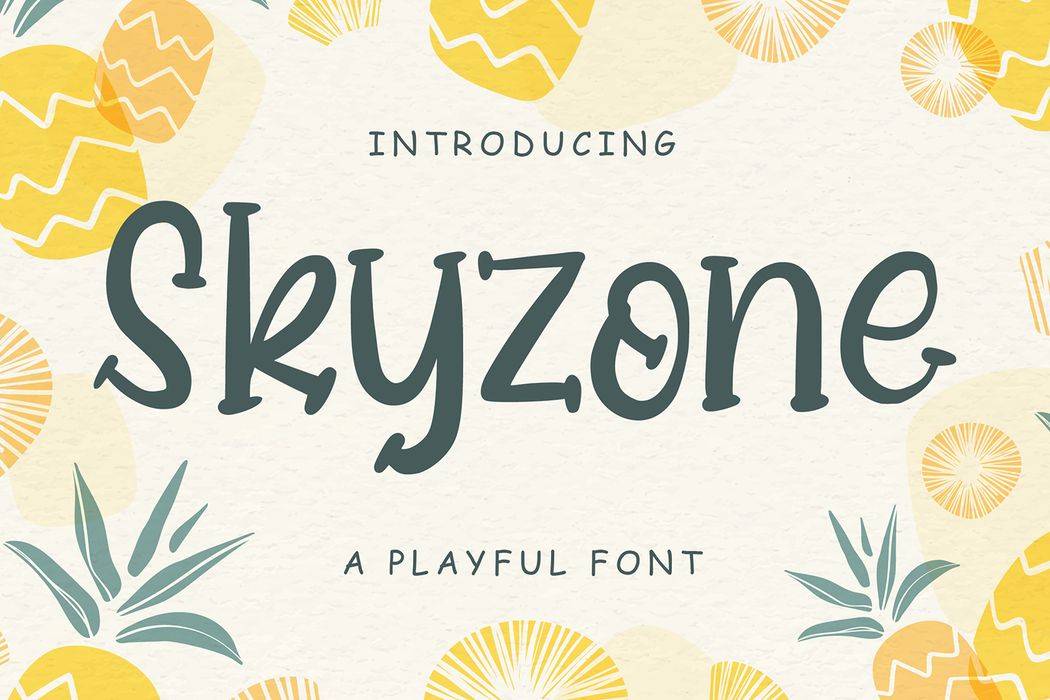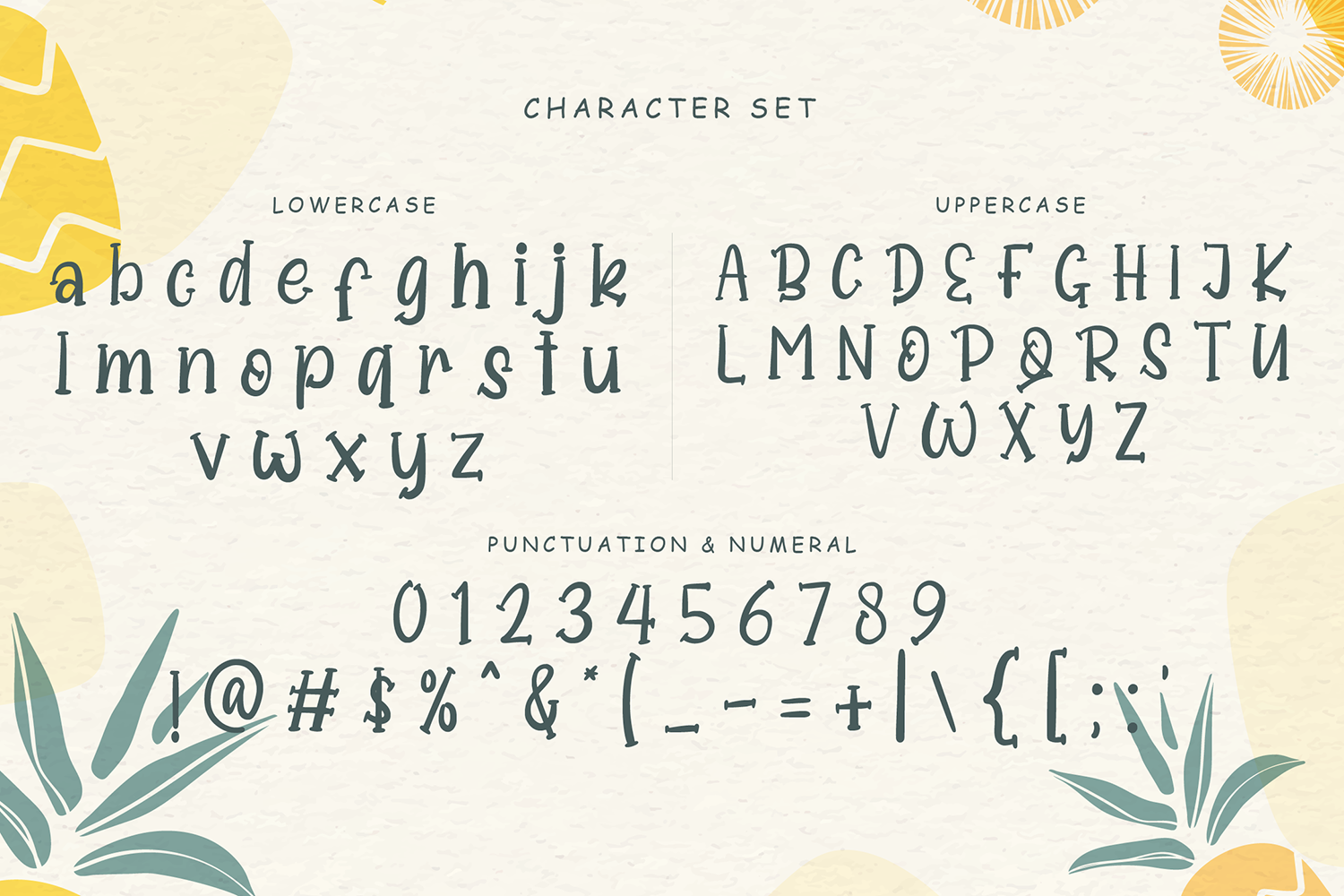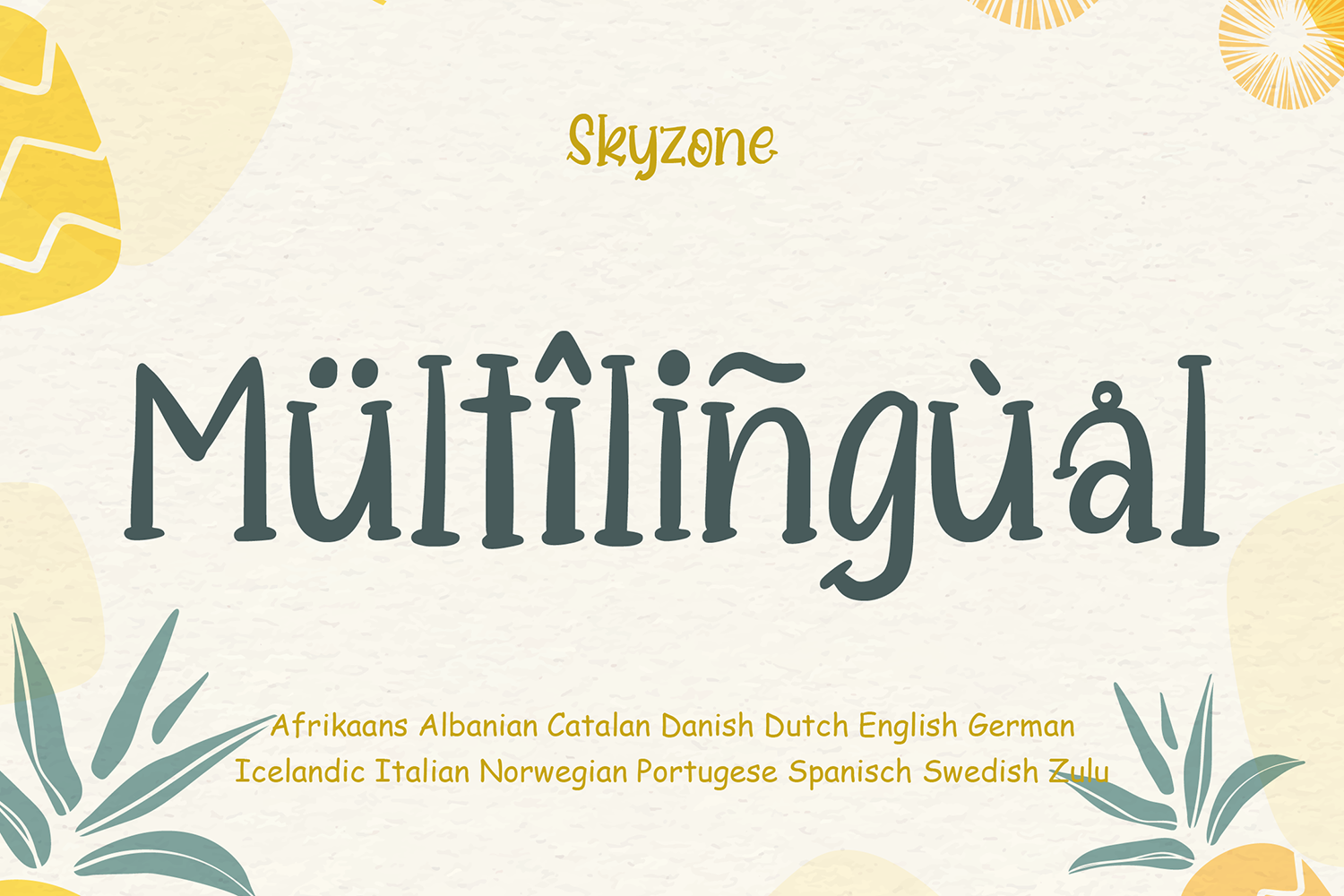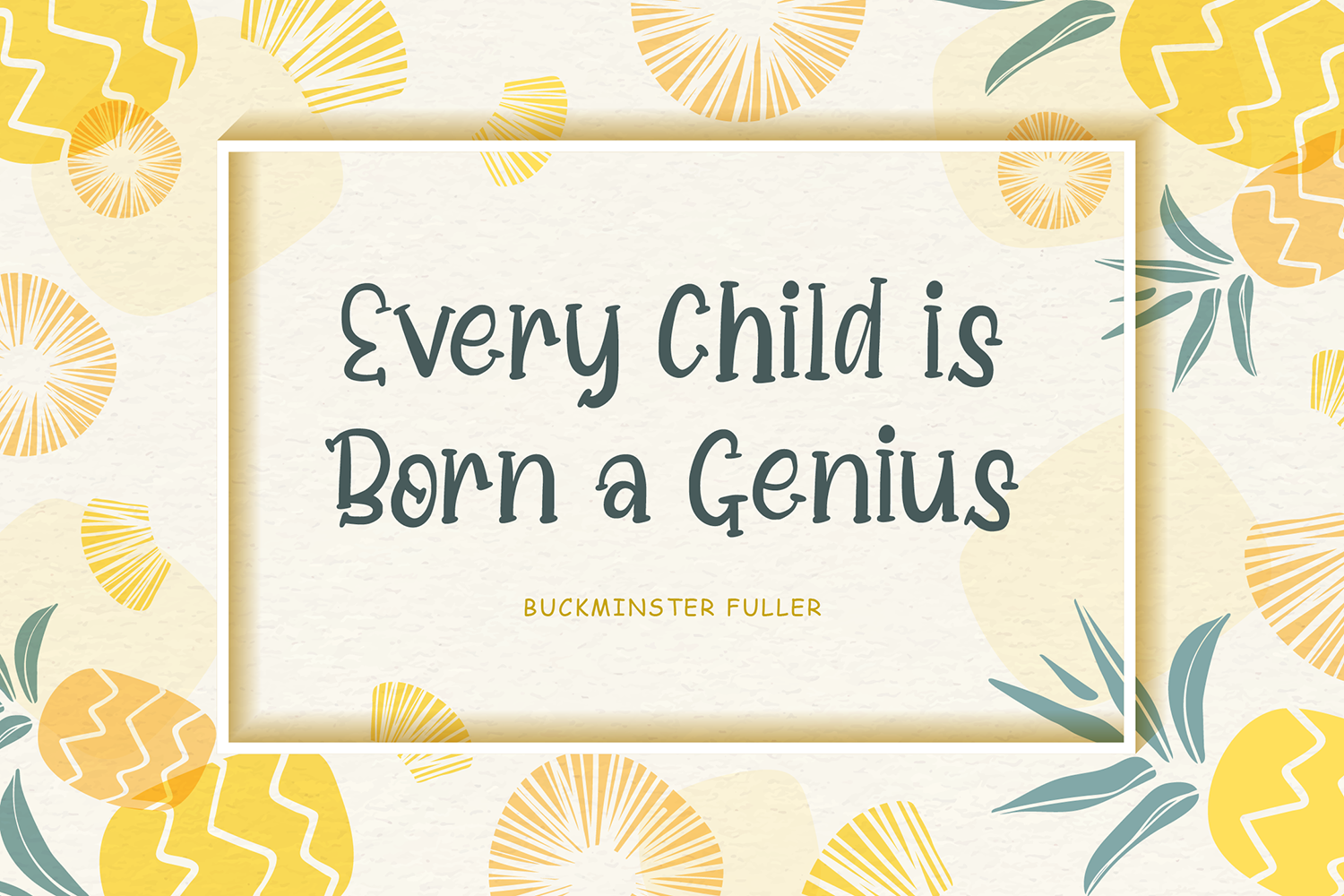
Skyzone is a quirky, playful serif font with a hand-drawn feel, featuring irregular strokes and whimsical letterforms that add character and charm. Its tall x-height and distinct punctuation make it ideal for creative projects, children’s books, or informal branding that seeks a fun, approachable vibe. This font works well in headlines and display uses where personality and uniqueness are key.
Skyzone Font
About Skyzone Font
| Font family | Skyzone Font |
| Designer | Dida Ahluddin |